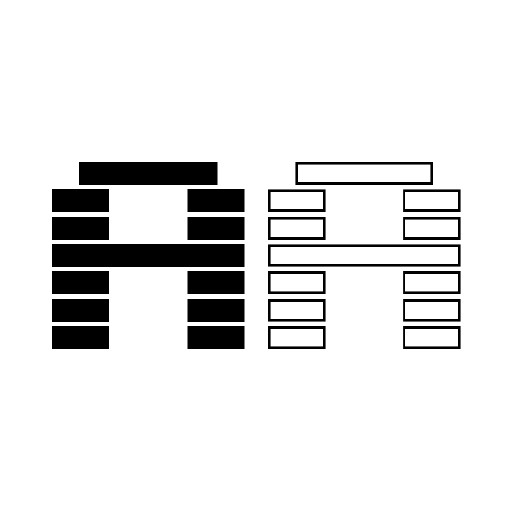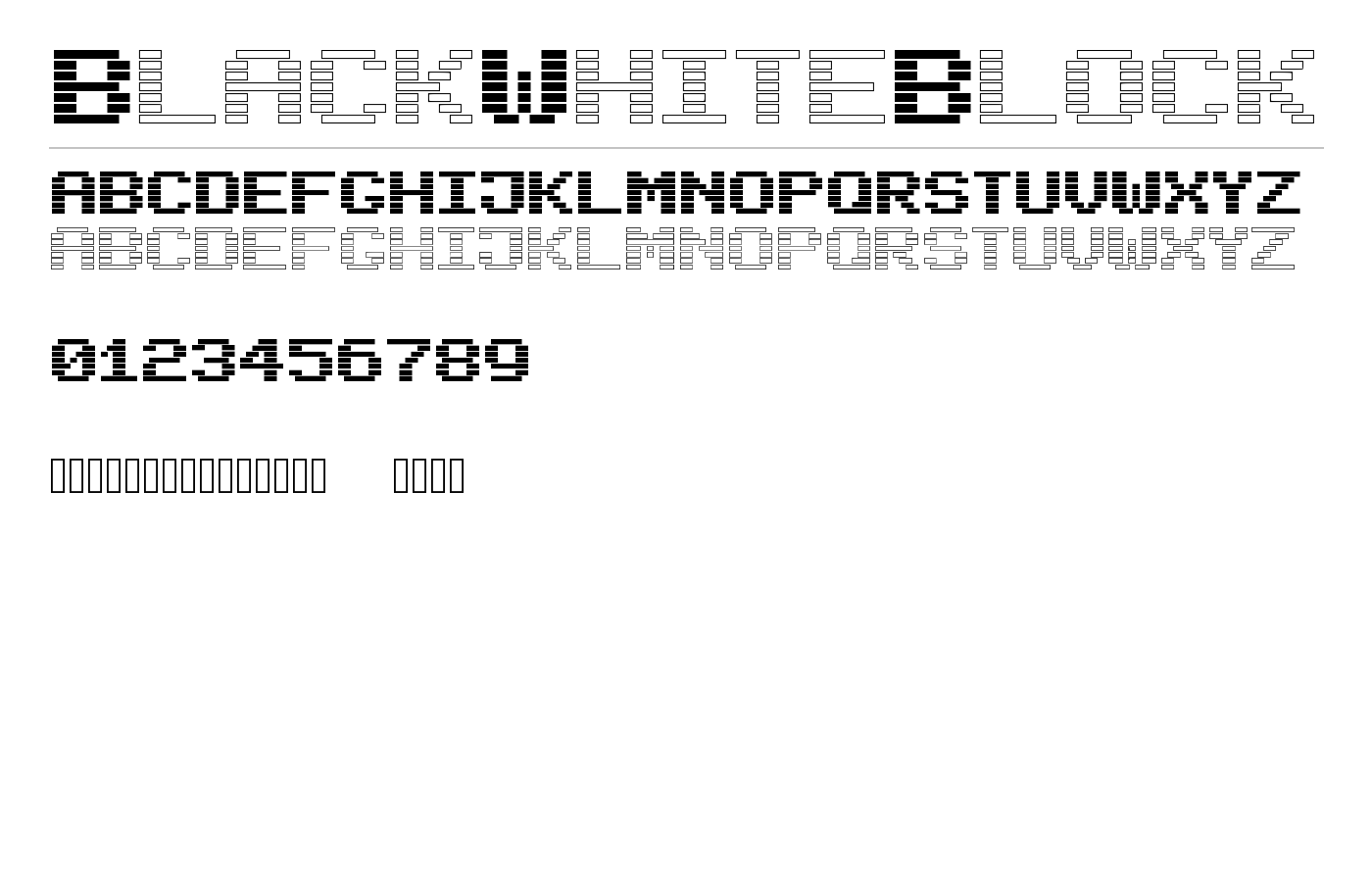
BlackWhiteBlock is a bold, geometric sans serif display font characterized by its unique blocky, pixel-like design that plays with alternating black and white spaces. This highly stylized font feels modern and digital, evoking a tech-savvy, retro-computer aesthetic ideal for eye-catching headlines, logos, or posters where a strong graphic impact is needed. Its rigid structure and uniform spacing make it less suited for body text but perfect for brands and designs that want to convey innovation and a futuristic vibe.
BlackWhiteBlock Font
About BlackWhiteBlock Font